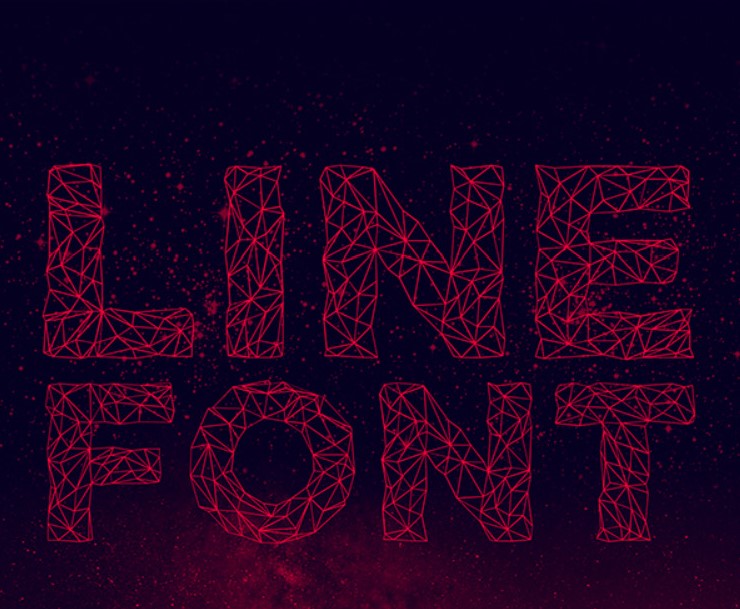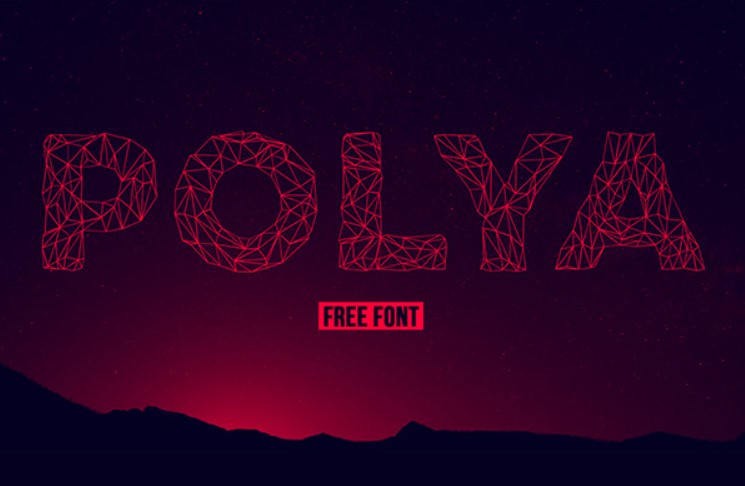
Polya Font
Polya Font is to be had without cost download in zip file layout. This is the reckoner typeface that is similar to the boxing font. This typeface is applied in pairing motive. A completely famous content cloth writer from courgette font the all proper reserved for this elegant typeface.
And he creates it for monetary rolling stone font gift-day writing and is derived. He has taken the idea from which modified into as fast as released. In this way. It has supported approximately one hundred ten kinds of international languages.
Polya Font Free Now that you may capable of furthermore be known as it the triumphing-day model of the magistral font. Because of the reality now it has contained the entire ancient factors with electricity. The complete letters collectively with this precise font feature pinnacle-notch based totally absolutely in reality format. This typeface is also indexed inside the google fonts.